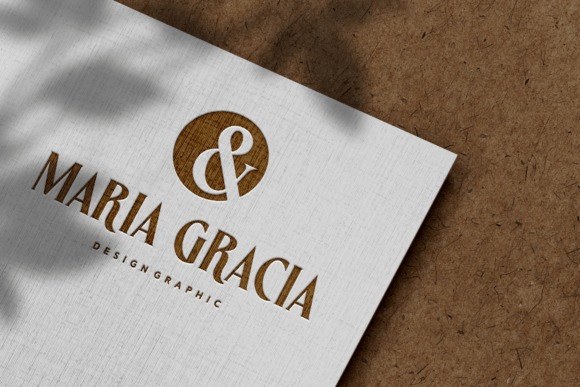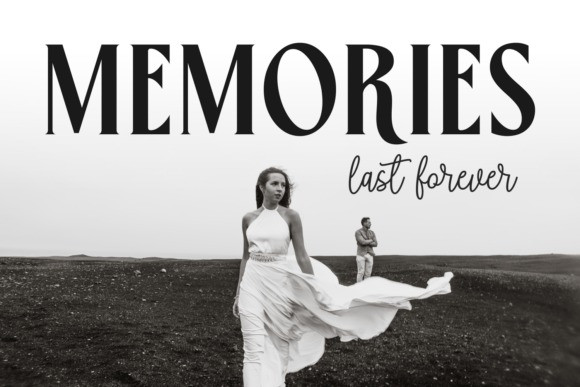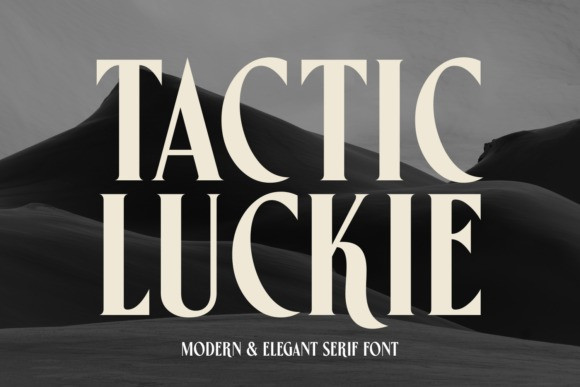
Tactic Luckie Font
Tactic Luckie Font, a modern and elegant serif font. The artistic and minimalist landscape complements the font’s bold, sculptural, and stylish letterforms.